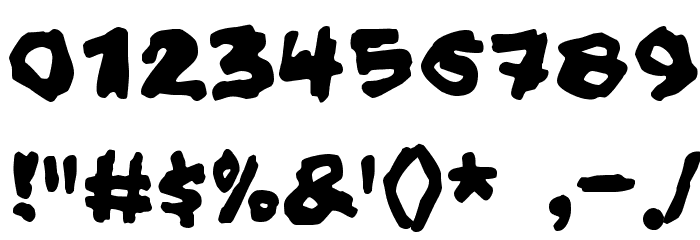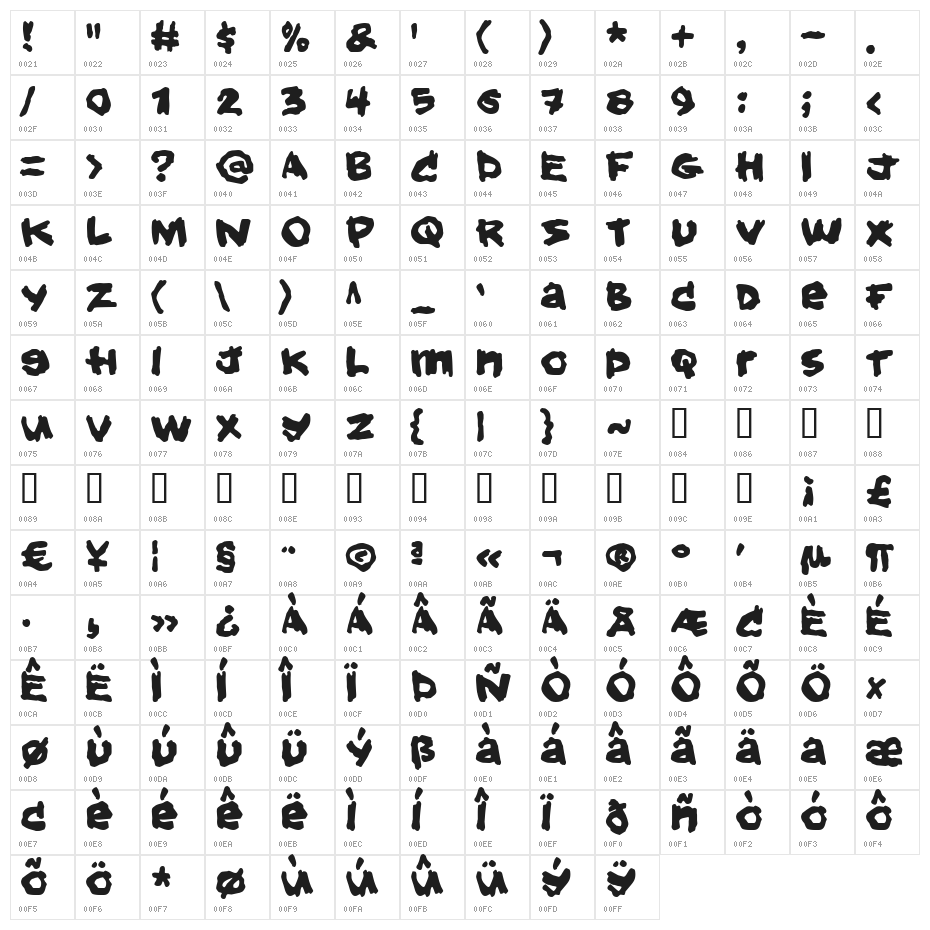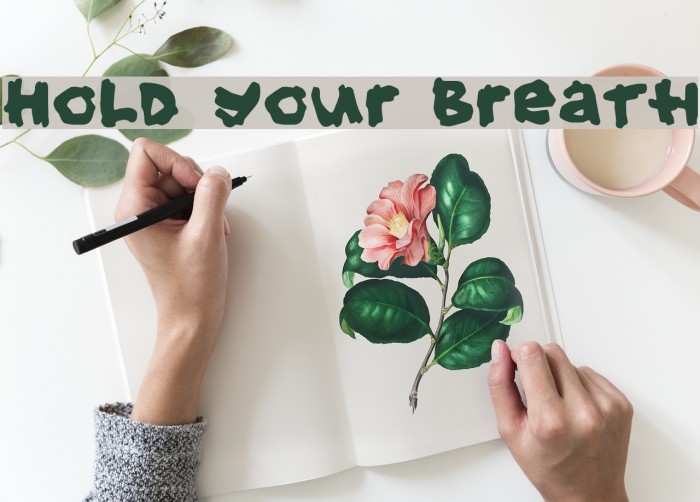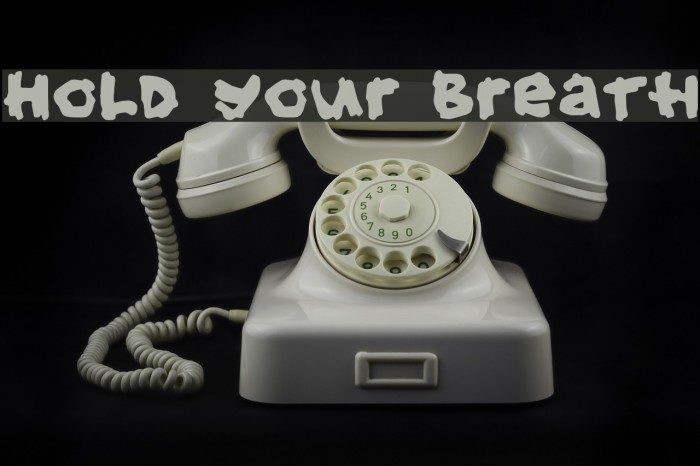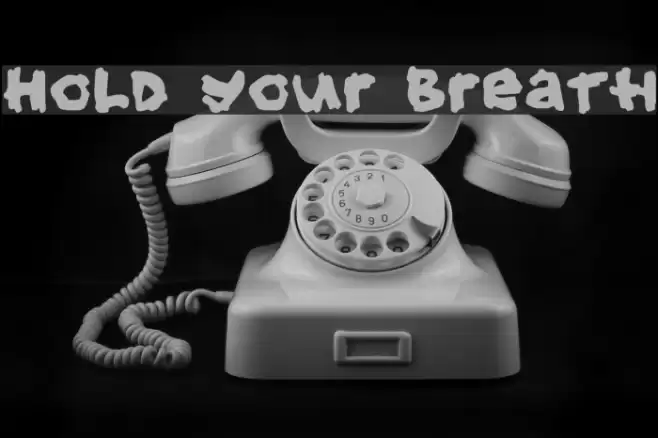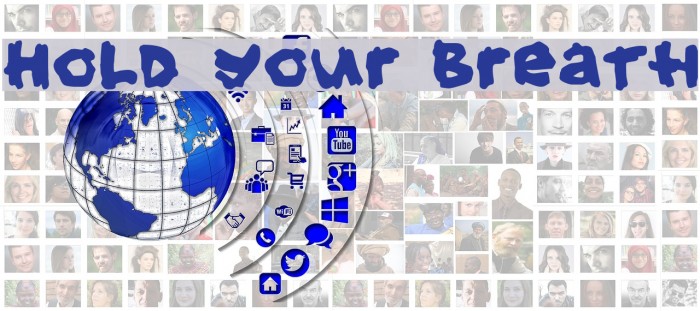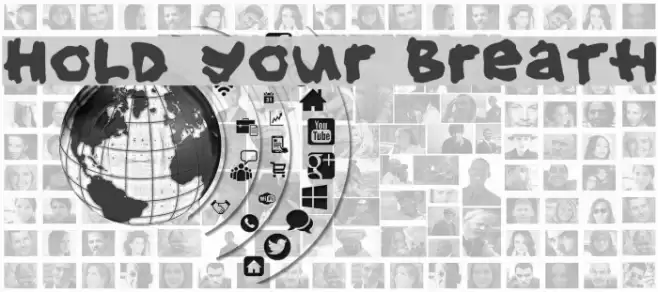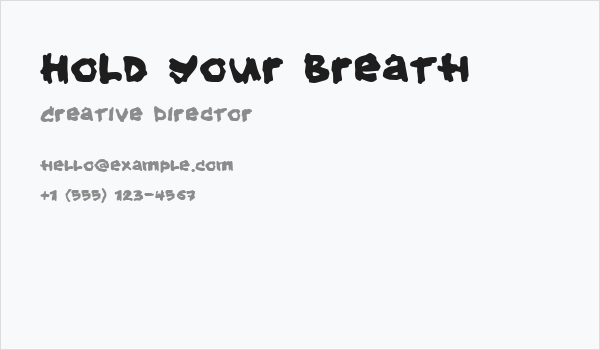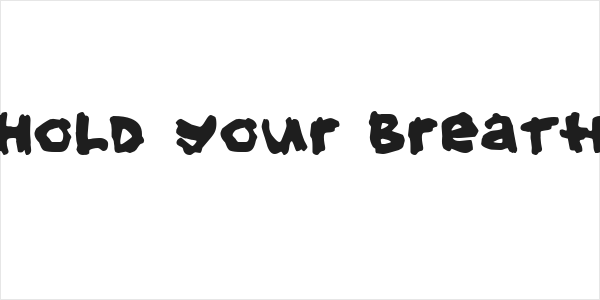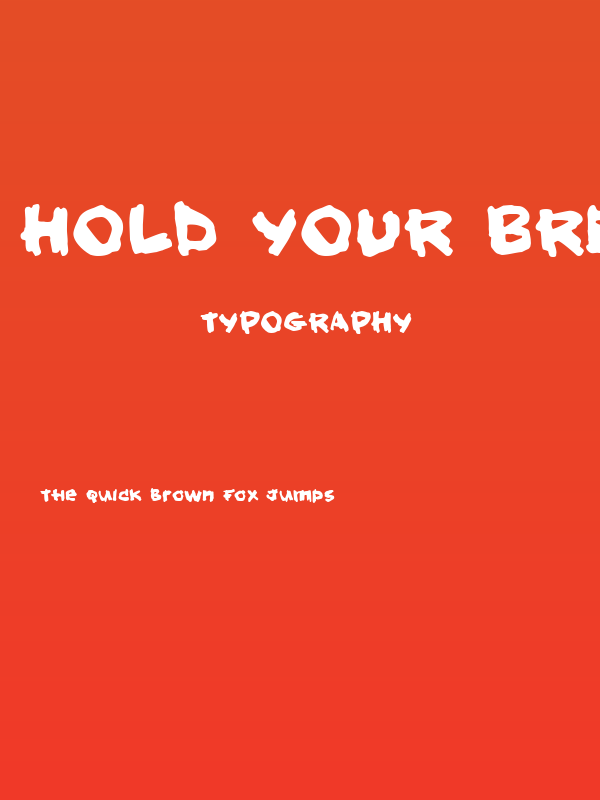
Hold your breath Font
Hold your breath Description
This font features a bold and expressive style with a hand-drawn appearance. The characters are thick and have a slightly irregular form, giving them a playful and dynamic look. The strokes are uneven, adding to the casual and informal feel of the typeface. The uppercase and lowercase letters maintain a consistent weight, while the numbers and special characters follow the same bold and quirky design. This font is ideal for projects that require a fun and energetic vibe, such as children's books, posters, or creative branding materials.
| Proposed Projects | Ideal for children's books, posters, creative branding, and playful designs. |